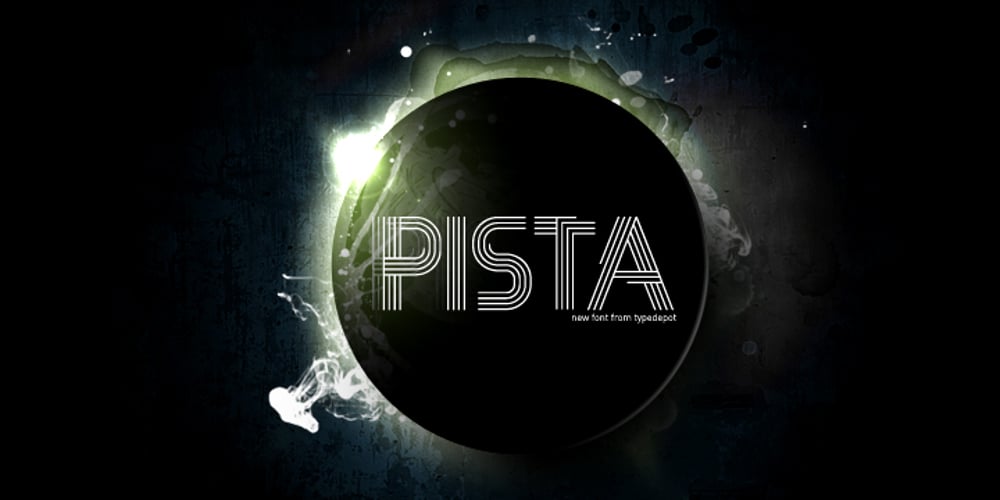
Pista
Pista font
Pista Font Family was designed by Alexander Nedelev, Veronika Slavova and published by Typedepot. Pista contains 6 styles and family package options. Pista is a unique decorative typeface which is applicable for web, print especially for magazines, brochures, posters, flyers and motion graphics. Pista has six weights – regular, bold, outline, rounded, rounded bold and rounded outline. The weights are perfect for logos – regular size has an elegant look, the bold and outline gives a unique feel.